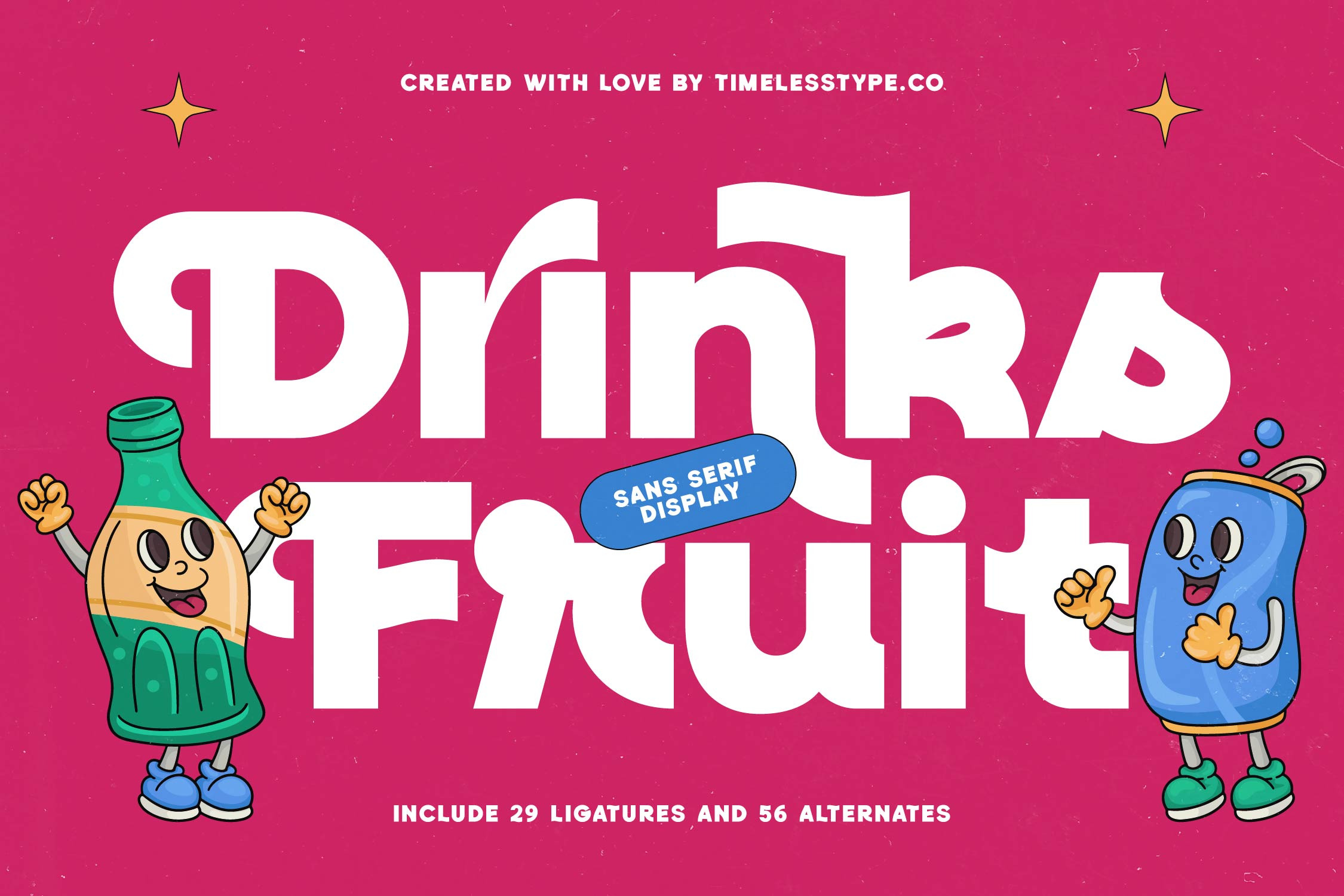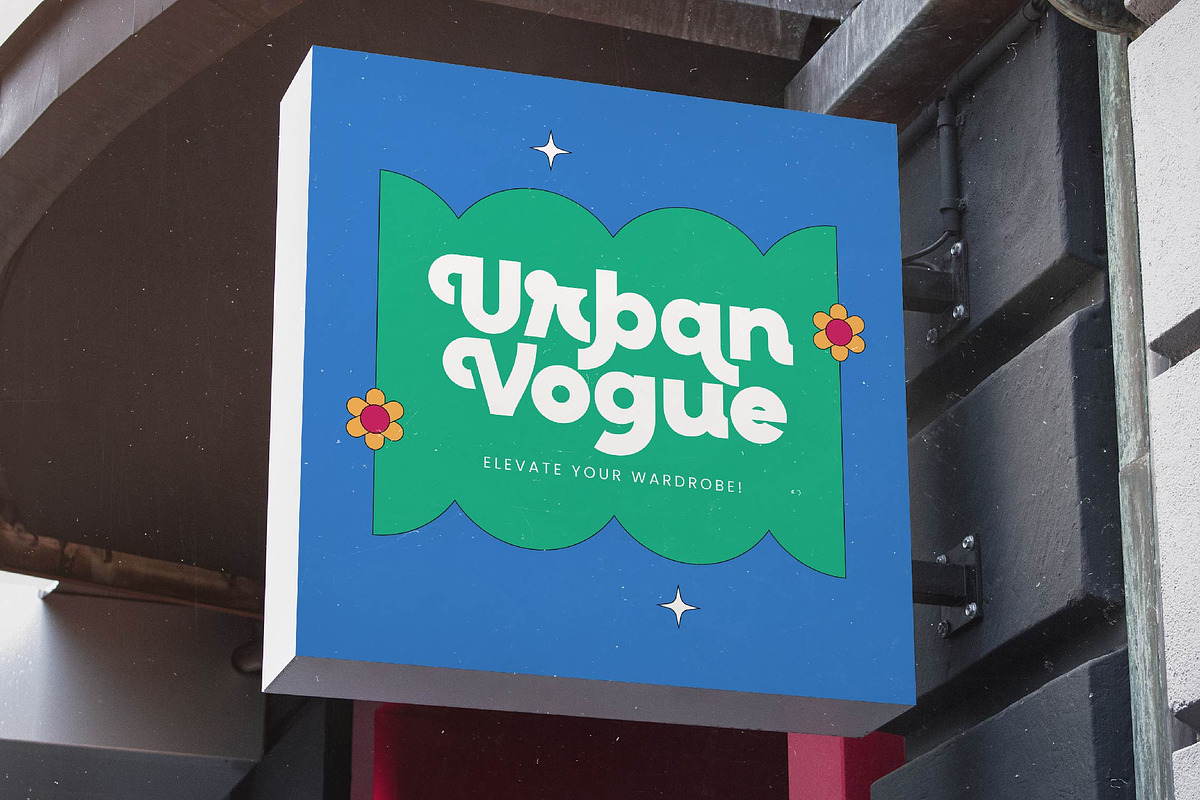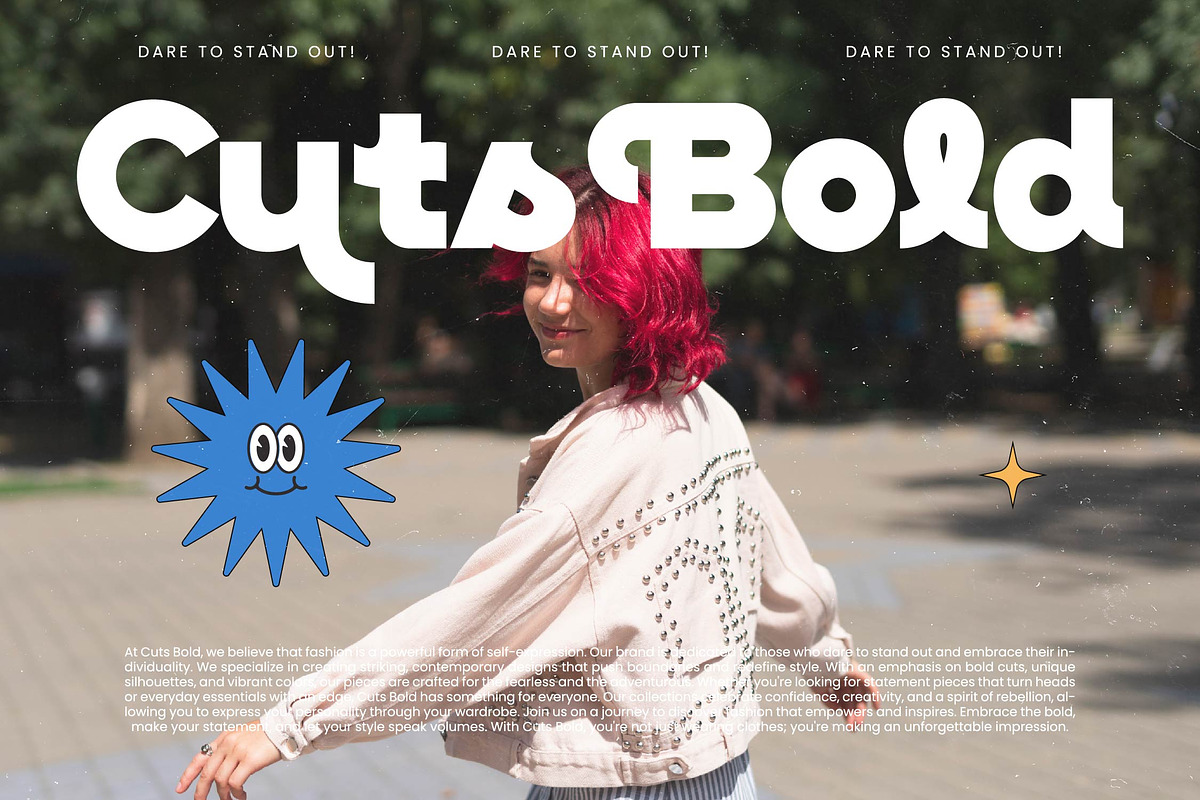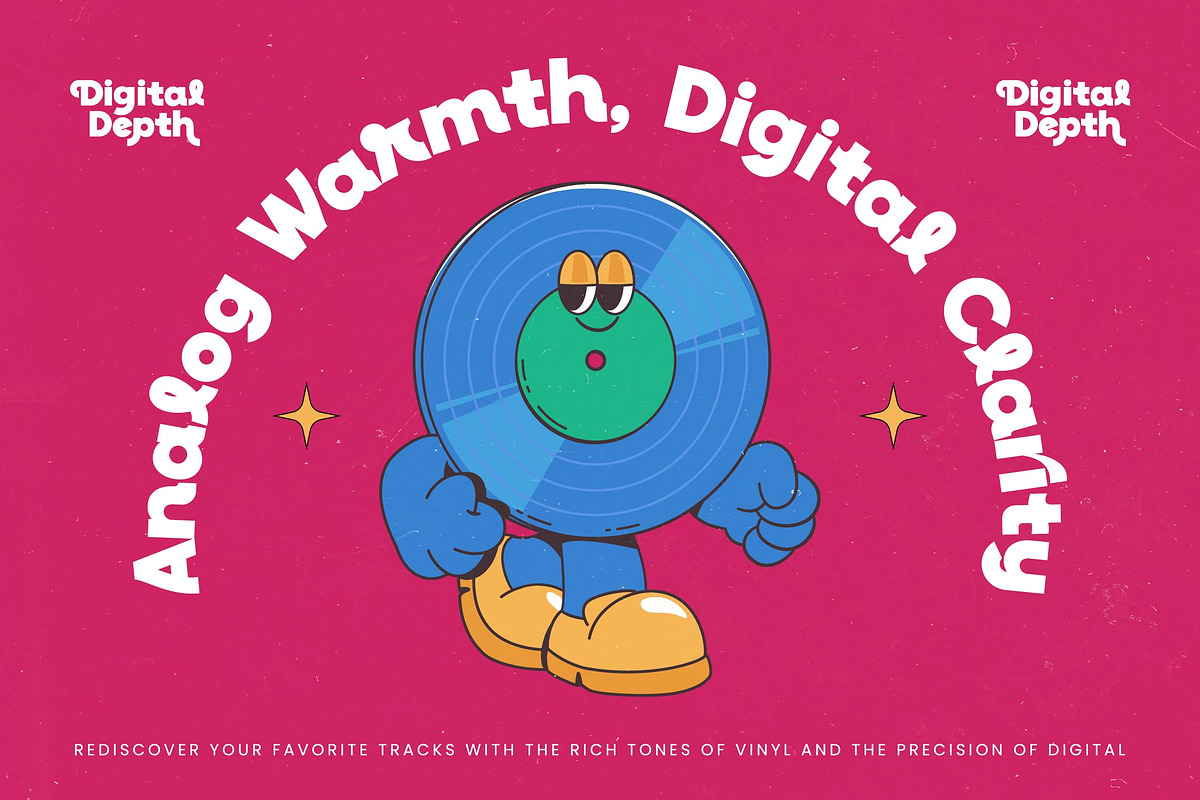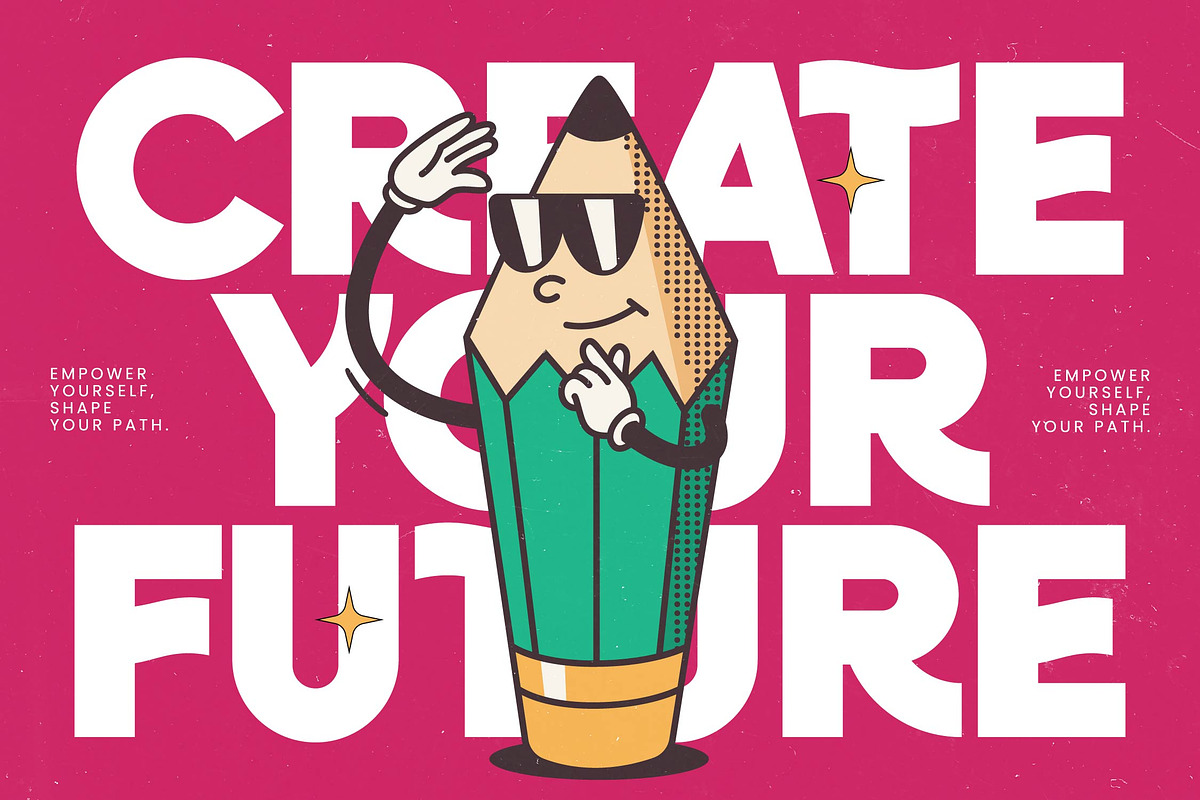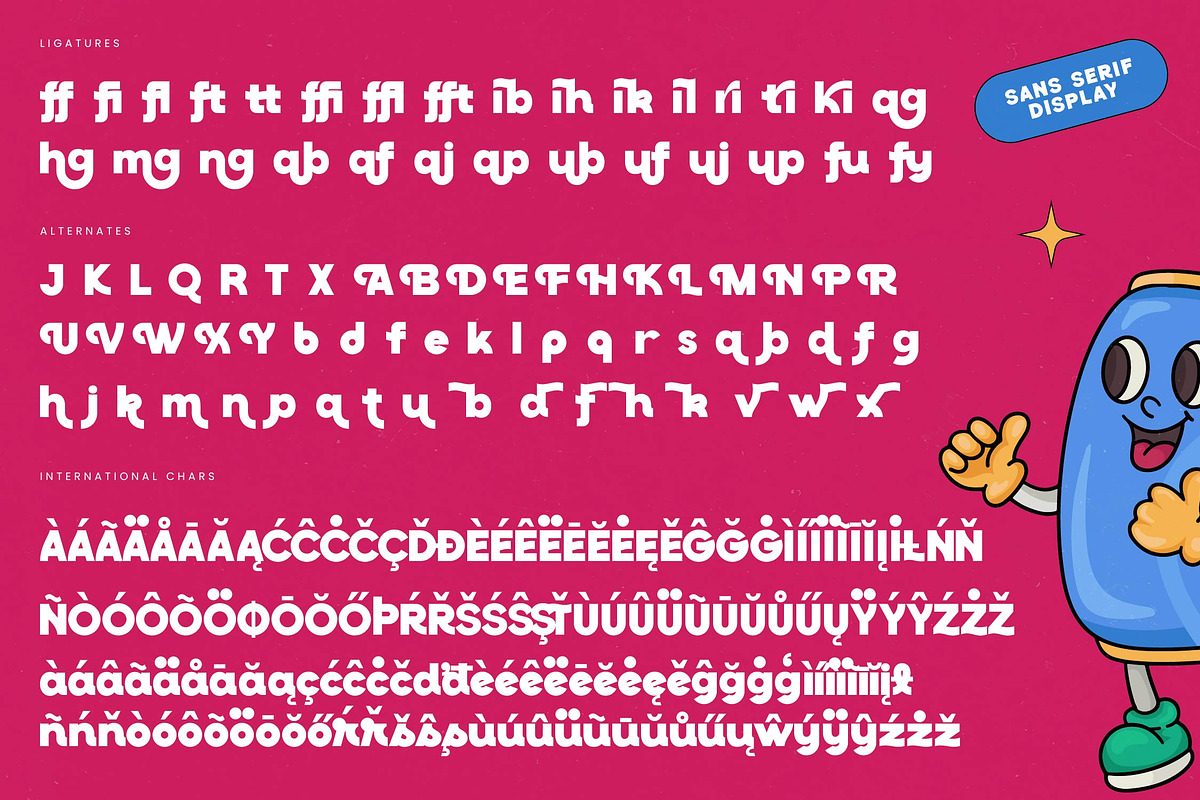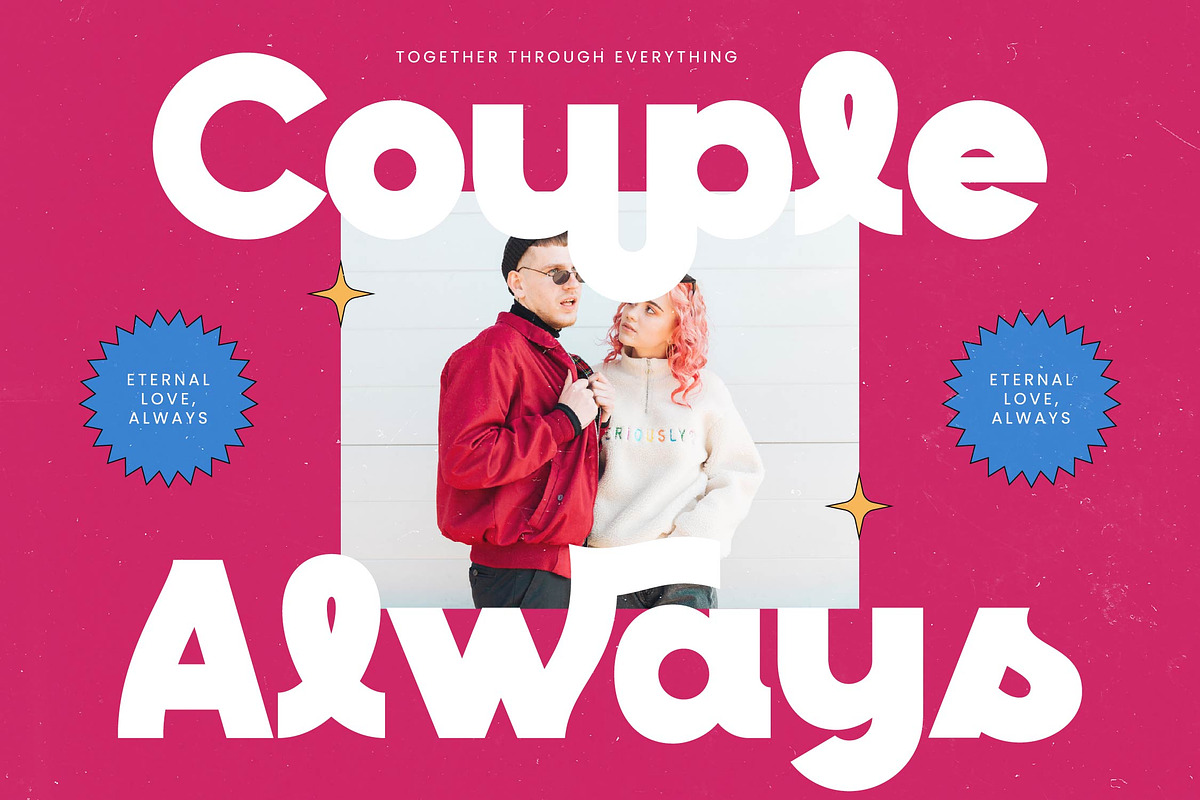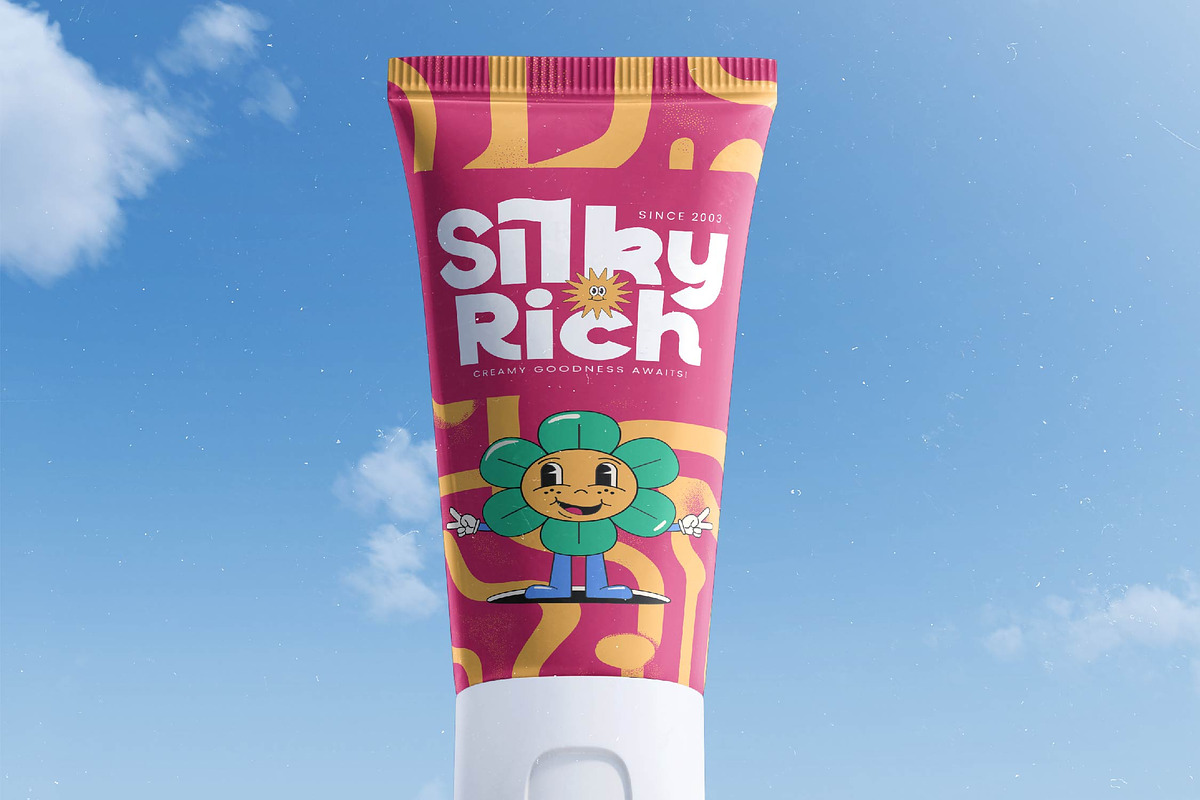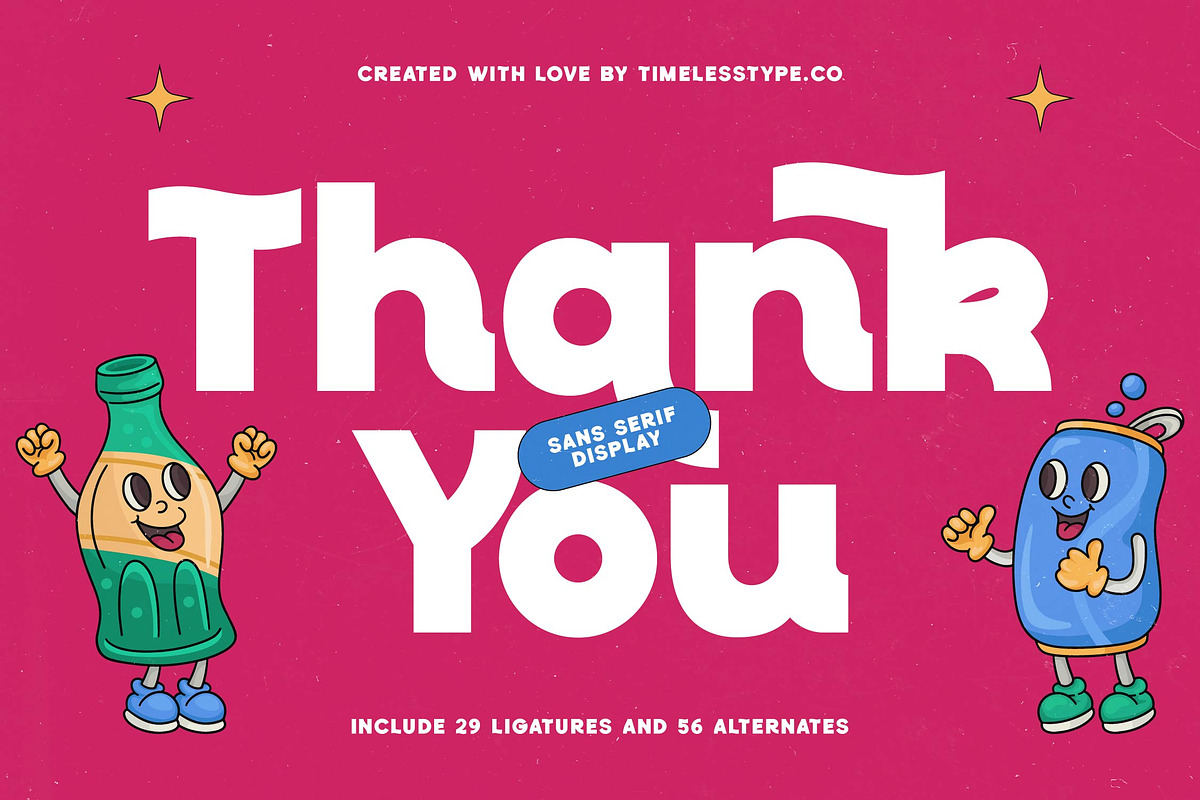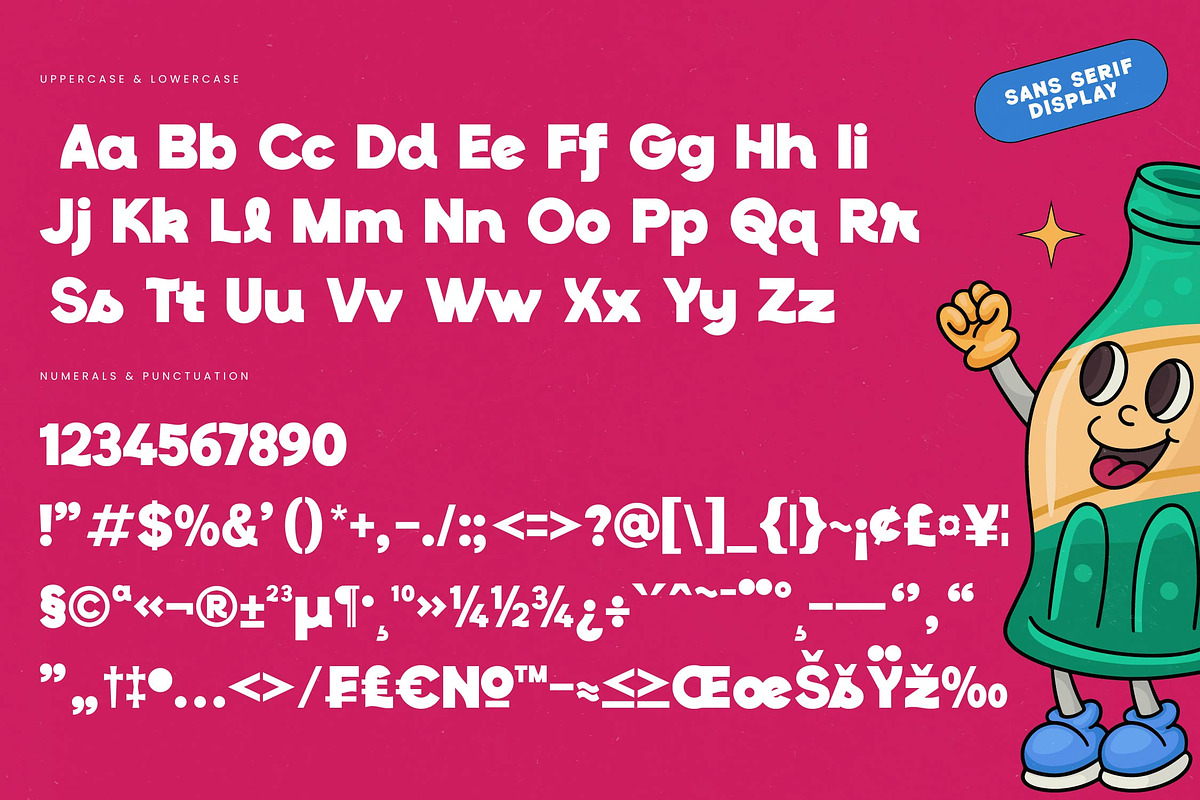
Drinks Fruit Retro Display Font
Introducing Drinks Fruit, a vibrant display font that brings a splash of pure joy and energy to every design project it touches. It’s the perfect blend of nostalgic charm and modern playfulness, crafted to make your headlines pop with personality.
Inspired by the groovy aesthetics of the 70s and 80s, this typeface draws its soul from vintage beverage branding and classic cartoon rubber hose animation styles. The fluid, bouncy letterforms evoke the refreshing feeling of a cold drink on a sunny day, capturing a timeless sense of fun.
This modern serif display style delivers an undeniable branding impact and functions as a high-end luxury typography choice. Designed as a high-contrast serif alternative, it provides a versatile editorial font solution that balances whimsical energy with professional clarity.
Tapping into the current modern serif trend, Drinks Fruit perfectly aligns with the rise of character-driven typography seen in modern identity design. It meets the professional demand for editorial display fonts that break away from corporate stiffness to offer something more human.
This versatile font is a powerhouse for logo design, branding, and bold editorial layouts that need to stand out. It excels in packaging for consumer goods, elegant wedding invitations, and high-energy fashion apparel branding.
The technical package is fully loaded with unique ligatures, stylistic alternates, and decorative swashes to give your typography a custom feel. It includes full multilingual support for international characters, ensuring your creative vision translates perfectly across any border.
- Ligature 29 Alternate 56